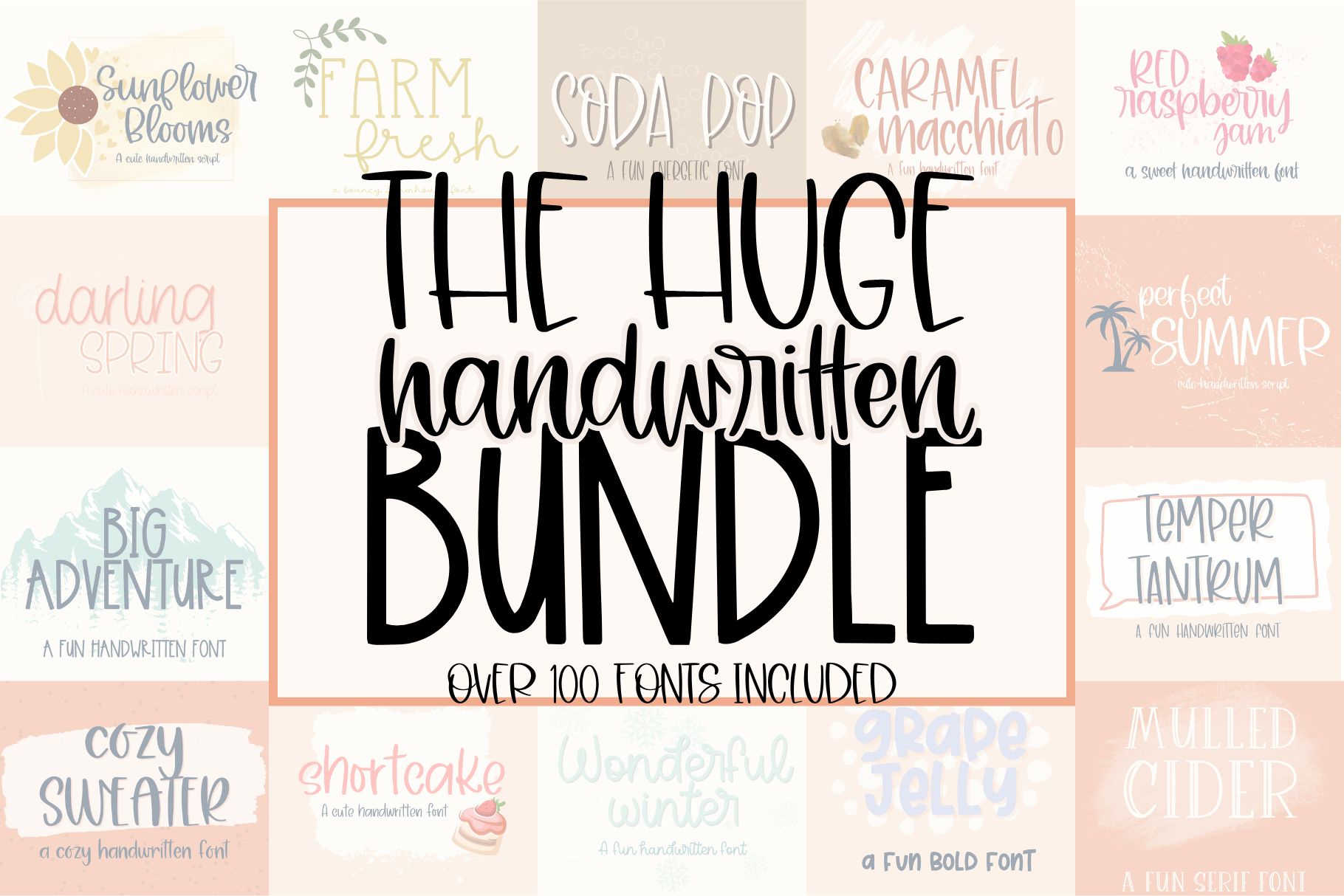
Huge Handwritten Font Bundle
Introducing our incredible Huge Handwritten Font Bundle, a delightful collection of 100+ handwritten fonts that is a must-have for all font enthusiasts! This comprehensive bundle includes an array of stunning cursive and script fonts, specifically designed for various creative projects, including fonts for Cricut and other cutting machines. Whether you're creating cards, scrapbooking, or working on SVG files, these fonts work perfectly with Cricut, Goodnotes, Procreate, & more. Elevate your creative endeavors today with our exceptional Huge Handwriting Font Bundle and unlock endless possibilities for your projects!
Fonts included are: After All Banana Cream Pie Beach Lagoon Berry Patch Serif Big Adventure Big Splash Solid Bubblegum Buttermilk Biscuits Campfire Candy Cane Cutie Candy Floss Caramel Macchiato Chatterbox Cheeky Grin Chickadees Country Berries Cozy Sweater Creepy Crawler Cute Spooks Darling Spring Delicate Flower Falling Stars Farm Fresh Favorite Child Feeling Fancy first snowfall Flapjacks Flower Girl Fresh Start Friendship Bracelet Front Porch Frosted Cookies Fruitcake Full Bloom Gorgeous Girl Grandma’s Recipe Grape Jelly Handmade Holidays Script Handmade Holidays Serif Harvest Hayride Heartbreaker Hey Pumpkin Holly & Jolly Homegrown Honey Glazed Indie Summer Island Getaway Lemonade & Sweet Tea Letterman Jacket Outline Letterman Jacket Script Lightning Bugs Like Magic Lovely Haunting Magic Cauldron Melon Sorbet Mint & Cocoa Mocha & Espresso Monkey Bars Morning Recess Mulled Cider Neat Notebook Night Sky Oh, Fiddlesticks! Peppermint Twist Perfect Summer Pink Sands Pipsqueak Outline Red Raspberry Jam Rising Star Roller Derby Shine A Light Shortcake Silly Boy Outline Snapdragons Snowdays Snow Wonder Outline Snow Wonder Solid Snow Wonder Snow Soda Pop Someone Special Some Witch Sour Candy String Bikini Study Hall Sugar & Honey Sugar Kisses Summer Sun Summer Sunset Sunflower Blooms Sunshine & Lemons Surprise Party Balloons Surprise Party Outlines Sweet Cream Sweet Sugar Plums Temper Tantrum The Sunnyside The Willow Tree Thin Ice Under Your Spell Vanilla Honey Vintage Writer Warm Hearth Wedding Serenade White Picket Fence Wicked Cute Wild Adventure Winter Sky Wishing Star Witches Lane With Love Wonderful Winter